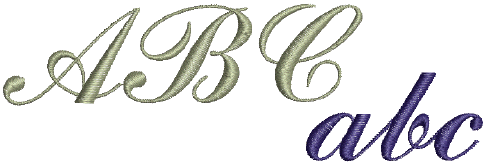
Digitizing script fonts ​
Now we are going to make a script font. Certain digitizing rules apply when creating script fonts, mainly to ensure that the tail of each letter joins seamlessly with the next letter.